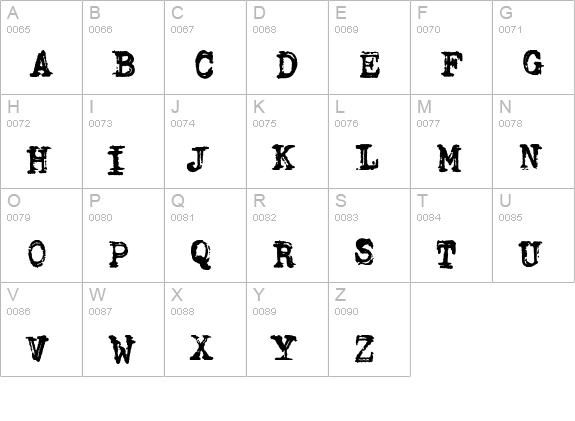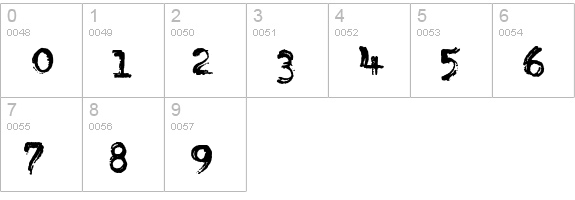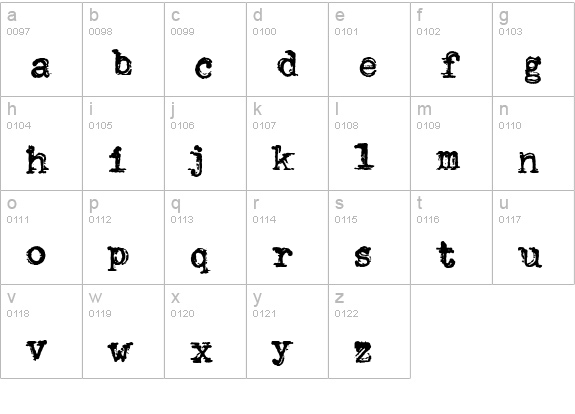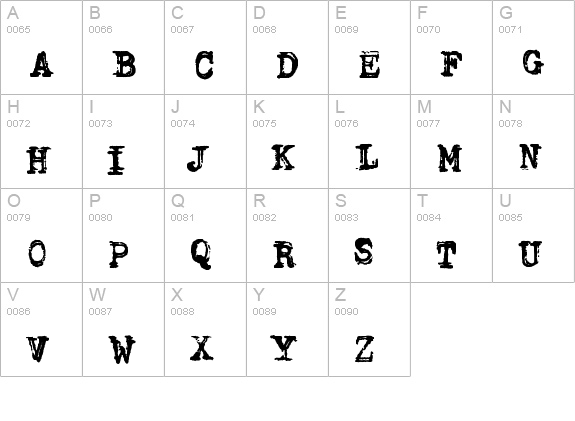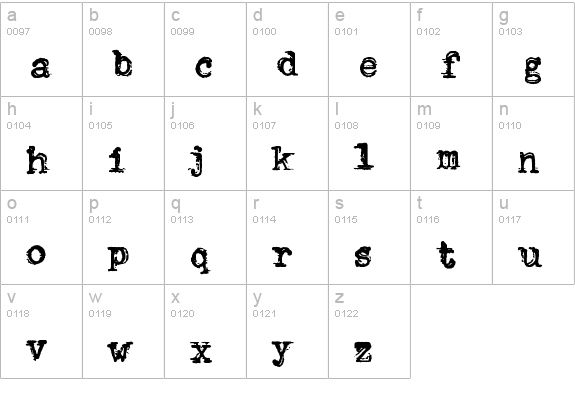
DumbOldTypewriter DoublePunch font is a unique and stylish typeface that combines the vintage charm of an old typewriter with a modern twist. This font features bold and striking double punches that add a touch of sophistication to any design project. Its quirky yet elegant appearance makes it perfect for a variety of creative applications, from branding to editorial design. The DumbOldTypewriter DoublePunch font is not only visually appealing but also versatile, making it suitable for both headlines and body text. Its distinctive character set includes uppercase and lowercase letters, numbers, and punctuation marks, allowing for endless creative possibilities. Best of all, this font is completely free to download at FontsMarket.com. So whether you're a seasoned designer looking to add a unique touch to your projects or a novice looking for a stylish font to elevate your work, DumbOldTypewriter DoublePunch is the perfect choice. Download it today and unleash your creativity!